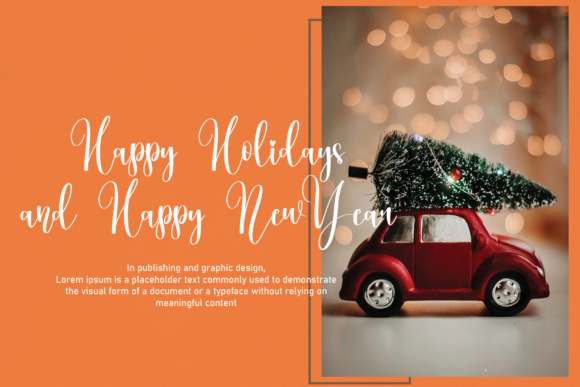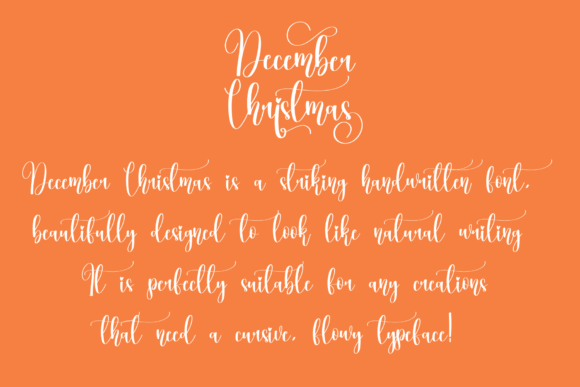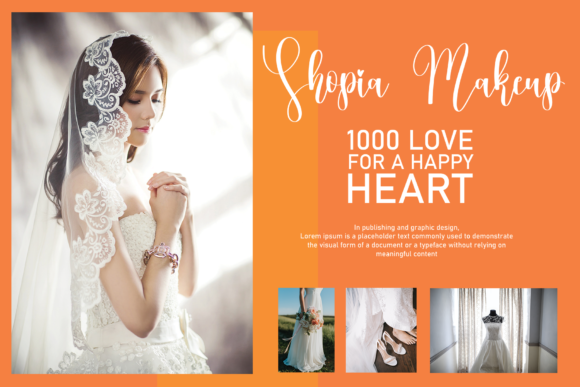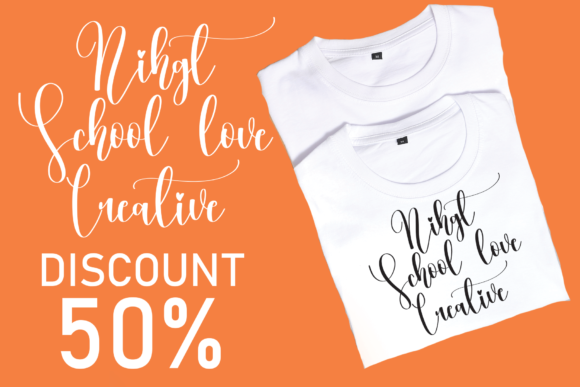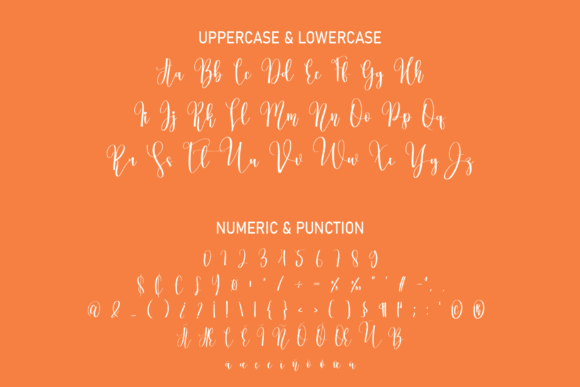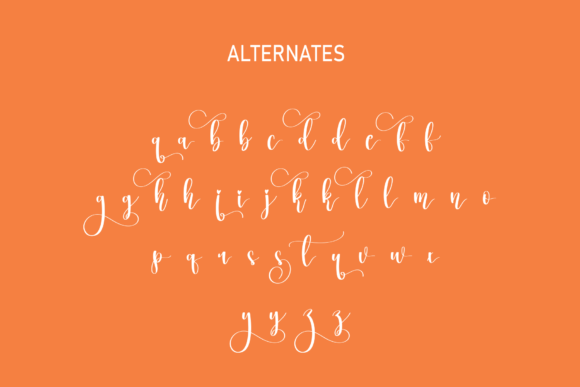
Introducing December Christmas Font: A Modern Typeface for Festive Designs
Are you looking for a unique and modern font to add a touch of festivity to your designs? Look no further than the December Christmas Font. This stunning typeface is perfect for creating eye-catching wall displays, wedding invitations, social media post logos, advertisements, product packaging, product designs, labels, photography, watermarks, invitations, stationery, and any project that requires a tasteful handwriting.
What Makes December Christmas Font Special?
December Christmas Font is a modern typeface that boasts unique glyphs, making it stand out from traditional Christmas fonts. Its distinctive style is perfect for designers and crafters who want to add a touch of elegance and sophistication to their designs. The font’s modern aesthetic makes it versatile and suitable for a wide range of applications, from festive holiday designs to everyday branding projects.
Key Features of December Christmas Font
- Unique Glyphs: December Christmas Font features unique glyphs that will add a touch of personality to your designs.
- Modern Aesthetic: The font’s modern style makes it perfect for contemporary designs and branding projects.
- Versatile: December Christmas Font is suitable for a wide range of applications, from festive holiday designs to everyday branding projects.
- Tasteful Handwriting: The font’s elegant style makes it perfect for projects that require a touch of sophistication.
Uses of December Christmas Font
December Christmas Font is perfect for a variety of design projects, including:
- Wall Displays: Create eye-catching wall displays for your business or home with December Christmas Font.
- Wedding Invitations: Add a touch of elegance to your wedding invitations with this beautiful font.
- Social Media Post Logos: Create stunning social media post logos that will make your brand stand out.
- Advertisements: Use December Christmas Font to create eye-catching advertisements that will grab attention.
- Product Packaging: Add a touch of festivity to your product packaging with this unique font.
- Product Designs: Create stunning product designs that will make your products stand out.
- Labels: Use December Christmas Font to create beautiful labels for your products or gifts.
- Photography: Add a touch of elegance to your photography with this beautiful font.
- Watermarks: Use December Christmas Font to create stunning watermarks for your photos.
- Invitations: Create beautiful invitations for any occasion with this versatile font.
- Stationery: Add a touch of sophistication to your stationery with December Christmas Font.
Why Designers and Crafters Love December Christmas Font
Designers and crafters love December Christmas Font for its unique and modern aesthetic. The font’s elegant style makes it perfect for projects that require a touch of sophistication. Its versatility and wide range of applications make it a valuable addition to any designer’s or crafter’s toolkit.
Tips for Using December Christmas Font
- Experiment with Different Sizes: December Christmas Font looks great in a variety of sizes, so don’t be afraid to experiment.
- Pair with Other Fonts: Pair December Christmas Font with other fonts to create a unique and interesting look.
- Use on Different Backgrounds: Use December Christmas Font on different backgrounds to create a stunning contrast.
- Add Effects: Add effects such as glitter or snowflakes to give your designs a festive touch.
December Christmas Font is a modern typeface with unique glyphs that is perfect for designers and crafters who want to add a touch of elegance and sophistication to their designs. Its versatility and wide range of applications make it a valuable addition to any designer’s or crafter’s toolkit. With its modern aesthetic and tasteful handwriting, December Christmas Font is sure to become a favorite font for many designers and crafters.